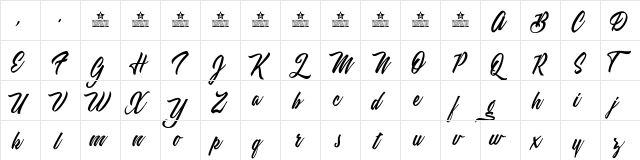
Weekend Flower Hunters Personal Regular
| Foundry | Billy Argel |
| Designer | Billy Argel |
Design Context for Weekend Flower Hunters Personal Typeface
Weekend Flower Hunters Personal is a composed and adaptable typeface that performs quietly and consistently across a wide range of design contexts.